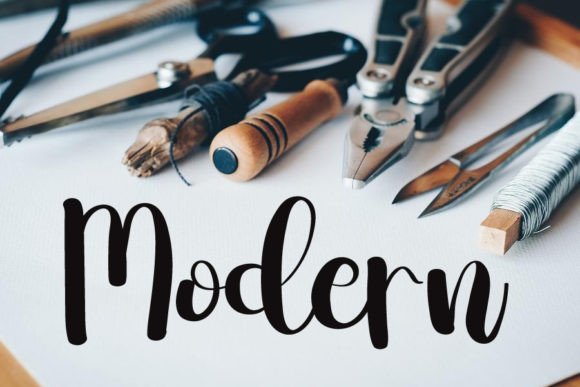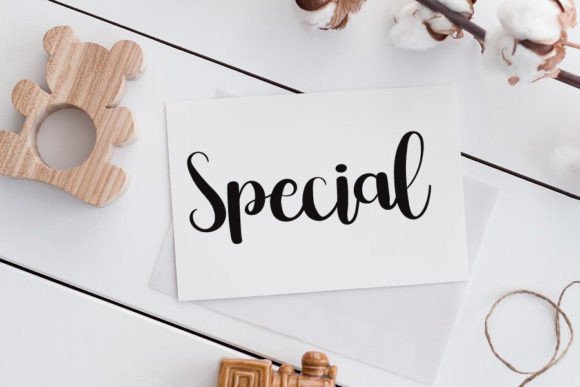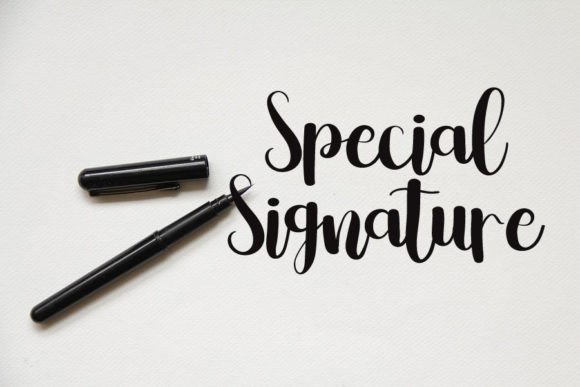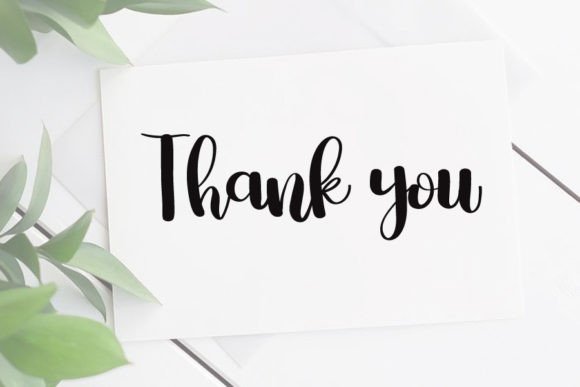
Introducing Align Font: Elevate Your Design with Luxury and Sophistication
Are you looking for a font that can add a touch of luxury and sophistication to your design projects? Look no further than Align Font, a modern and fresh handwritten script font that is sure to elevate your creations to the next level. With its elegant and refined aesthetic, Align Font is the perfect choice for designers and crafters who want to add a spark of luxury to their work.
The Perfect Blend of Modernity and Elegance
Align Font is a beautifully crafted handwritten script font that boasts a unique and distinctive style. Its modern and fresh approach to typography makes it an ideal choice for designers who want to create stunning and eye-catching designs. Whether you’re working on a branding project, a wedding invitation, or a packaging design, Align Font is sure to impress.
Key Features of Align Font
- Handwritten Script Style: Align Font features a beautiful handwritten script style that adds a touch of elegance and sophistication to any design.
- Modern and Fresh: With its clean lines and refined aesthetic, Align Font is perfect for designers who want to create modern and fresh designs.
- Luxury Appeal: Align Font’s luxurious and high-end feel makes it ideal for designs that require a touch of sophistication and glamour.
- Versatile: Align Font can be used for a wide range of design projects, from branding and advertising to packaging and stationery.
Why Choose Align Font?
There are many reasons why Align Font stands out from the crowd. Here are just a few:
- Unique and Distinctive: Align Font’s unique and distinctive style ensures that your designs will stand out from the crowd.
- Elegant and Refined: Align Font’s elegant and refined aesthetic makes it perfect for designs that require a touch of sophistication and luxury.
- Easy to Read: Despite its elegant and refined style, Align Font is easy to read and understand, making it perfect for body text and headlines.
- High-Quality: Align Font is a high-quality font that is designed to deliver exceptional results in any design project.
How to Use Align Font in Your Designs
Using Align Font in your designs is easy. Here are a few tips to get you started:
- Pair it with Other Fonts: Align Font pairs well with other fonts, making it easy to create stunning and harmonious designs.
- Use it for Headlines and Titles: Align Font is perfect for headlines and titles, where its elegant and refined style can really shine.
- Add it to Your Brand Identity: Align Font can be used to create a luxurious and high-end brand identity that will elevate your business to the next level.